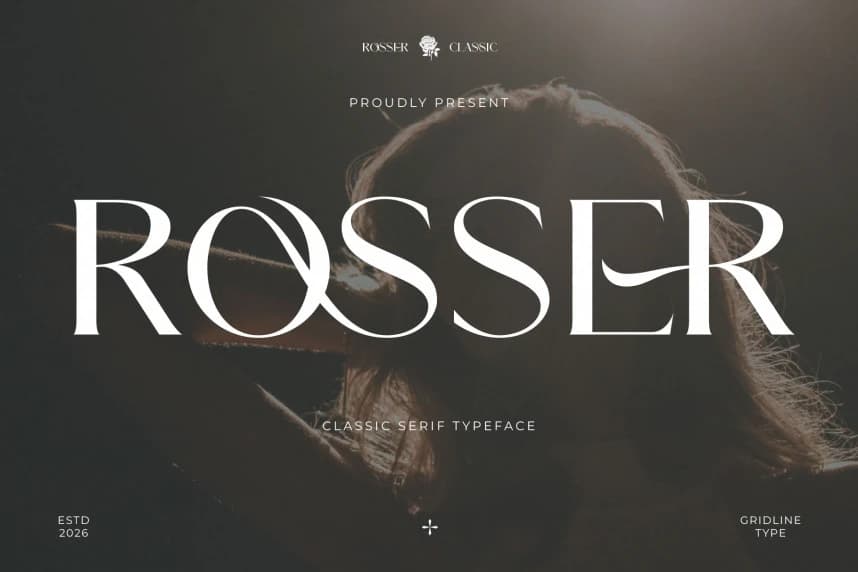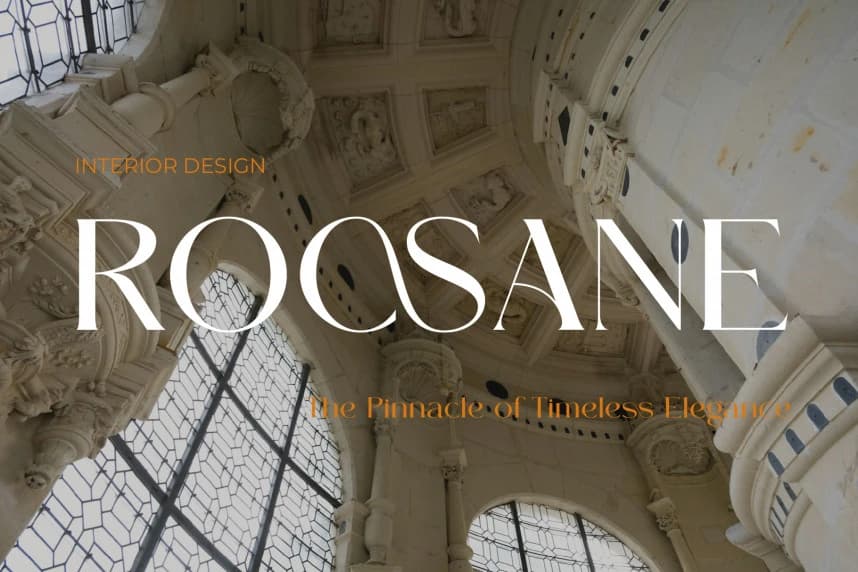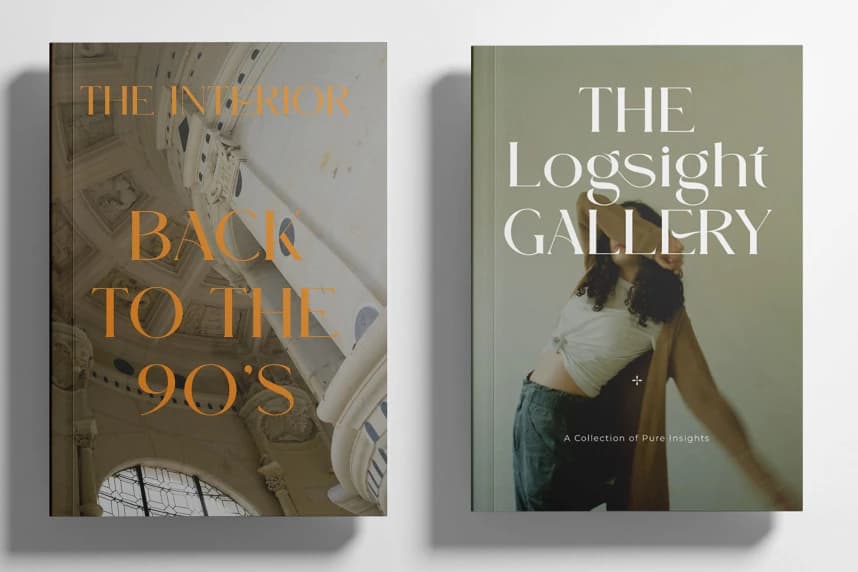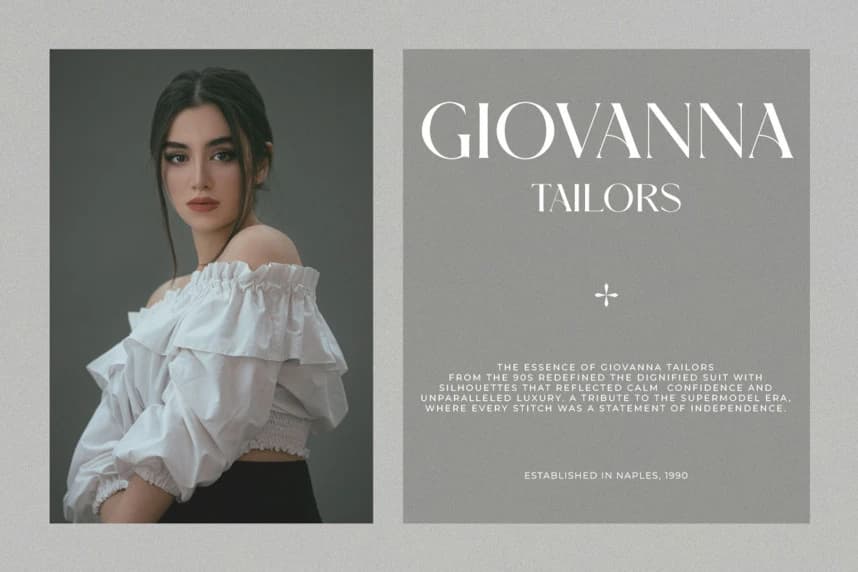
Rosser Font
Rosser Font, a classic serif typeface meticulously designed by Gridline Type. This font is a masterpiece of high-fashion elegance, featuring dramatic contrast between its thick stems and razor-thin hairlines.